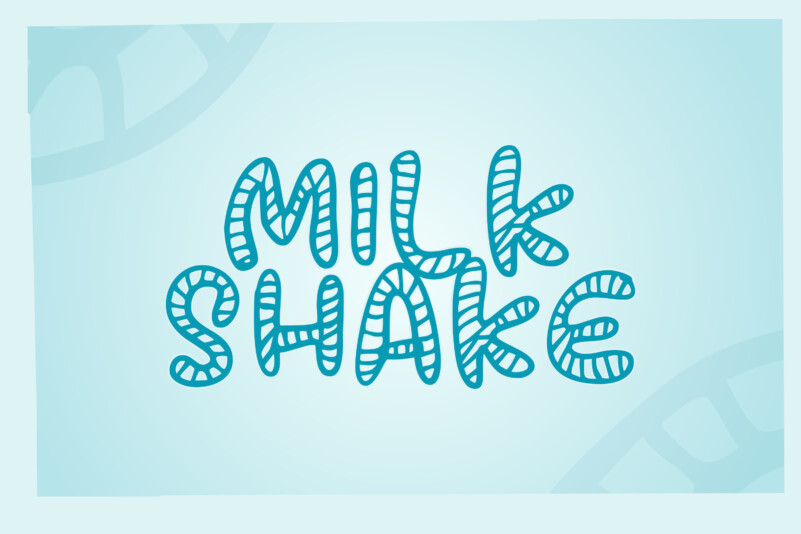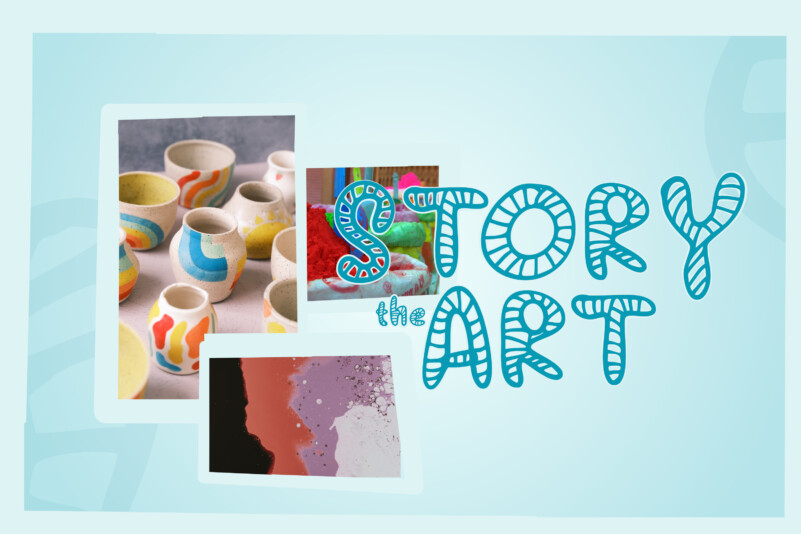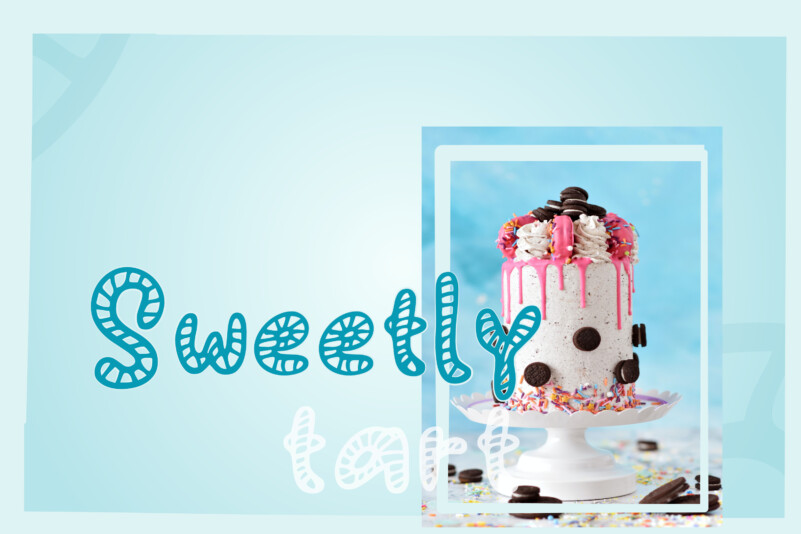
Jala Display Font is a fun and crafty display font. It can be used for digital designs, presentations, or making greeting cards. This font has the potential to become your favorite go-to font, no matter the occasion!